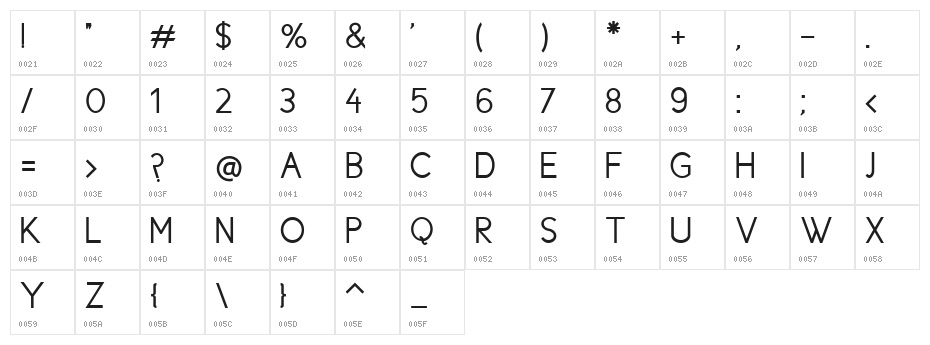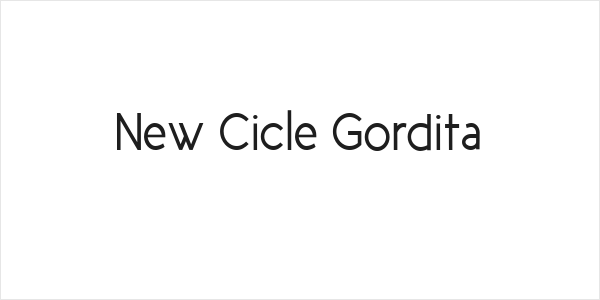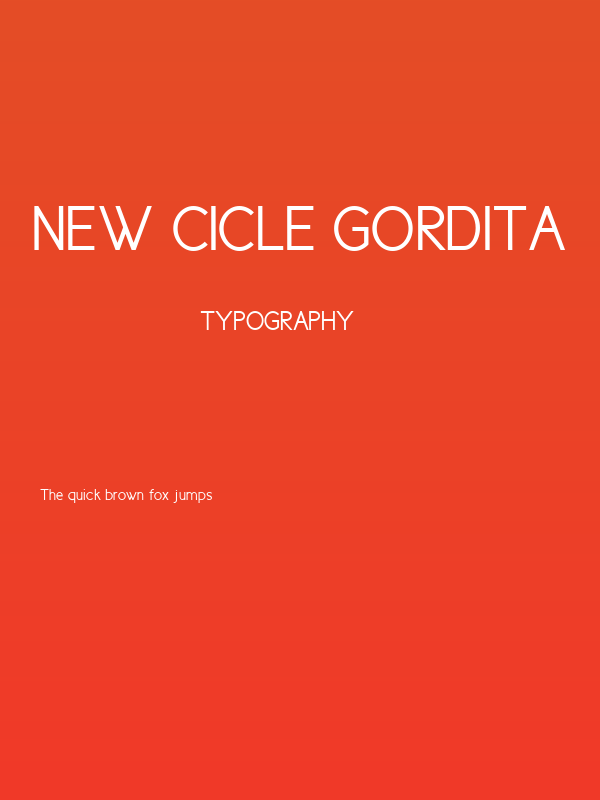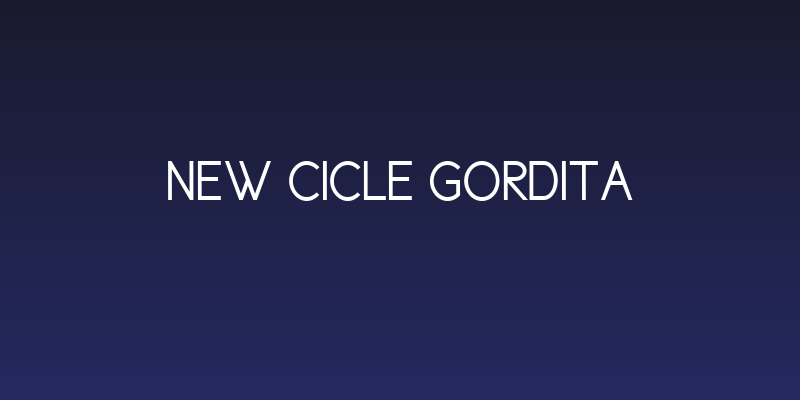
New Cicle Gordita Font
New Cicle Gordita Description
This font features a clean, geometric sans-serif style with a modern aesthetic. The characters are well-proportioned, with a consistent stroke width that gives it a uniform appearance. The uppercase letters are bold and assertive, while the lowercase letters maintain a friendly and approachable look. The numerals are clear and easy to read, making them suitable for various applications. Special characters are designed with simplicity in mind, ensuring they blend seamlessly with the rest of the typeface. Overall, this font exudes a sense of clarity and professionalism, making it versatile for both digital and print media.